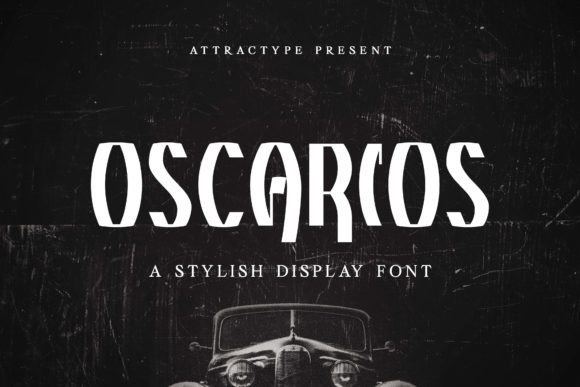
Unleash the Power of Expression with Oscarios: The Ultimate Display Font for Web Videos
In a world saturated with digital content, captivating your audience has never been more crucial. Oscarios, the trendsetting display font, emerges as your secret weapon to create web videos that resonate, inspire, and leave a lasting impact.
As a creative visionary, you understand the profound influence of typography in conveying emotions, setting the tone, and establishing an unforgettable connection with your viewers. With Oscarios by your side, you'll unlock a world of possibilities, transforming your web videos into captivating experiences that captivate and engage.
Meet Oscarios, the Epitome of Style and Functionality:
- Bold and Commanding Presence: Oscarios exudes confidence and authority, making your words leap off the screen with unwavering clarity and impact.
- Unparalleled Versatility: From dynamic titles and captivating intros to informative text overlays and thought-provoking end screens, Oscarios effortlessly adapts to your creative vision, adding a touch of sophistication to every element.
- Seamless Harmony with Your Design Aesthetic: Whether your videos exude a modern, vintage, or playful vibe, Oscarios seamlessly blends with your design aesthetic, enhancing the overall impact of your visual storytelling.
- A Font that Speaks to Your Audience: Oscarios possesses an innate ability to connect with your audience on a deeper level. Its carefully crafted characters evoke emotions, stimulate thought, and leave a lasting impression, ensuring your message resonates long after the video ends.
- Effortless Integration with Your Video Editing Arsenal: Oscarios integrates seamlessly with your favorite video editing software, ensuring a smooth and efficient workflow. Unleash your creativity without technical hurdles, focusing solely on crafting videos that leave your audience spellbound.
Elevate Your Web Videos to New Heights with Oscarios:
- Command Attention from the First Frame: Captivating titles and intros adorned with Oscarios instantly grab your audience's attention, setting the stage for an immersive viewing experience.
- Enhance Comprehension and Retention: Oscarios's crisp and legible characters ensure that your message is conveyed with utmost clarity, enhancing comprehension and retention among your viewers.
- Create a Unified and Cohesive Brand Identity: Whether you're crafting promotional videos, educational tutorials, or captivating vlogs, Oscarios weaves your brand's unique personality throughout, creating a consistent and recognizable visual identity.
- Drive Engagement and Boost Conversions: When your web videos exude professionalism and creativity, your audience is more likely to engage with your content, share it with their networks, and take the desired actions, leading to increased conversions and business growth.
- Join the Ranks of Creative Visionaries: Oscarios is the font of choice for discerning creators, YouTubers, and video marketers worldwide. By embracing Oscarios, you align yourself with a community of innovators who understand the transformative power of typography in digital storytelling.